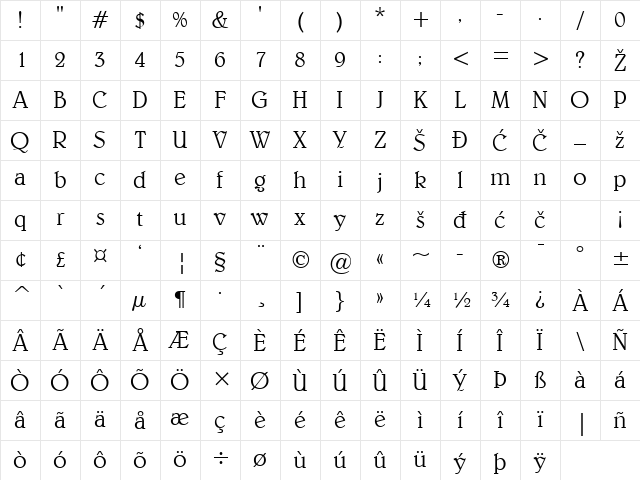
BelweLight is a composed and adaptable typeface that performs quietly and consistently across a wide range of design contexts. Its slender proportions lend an understated elegance to any composition.